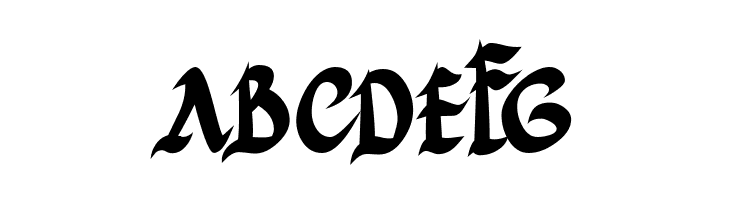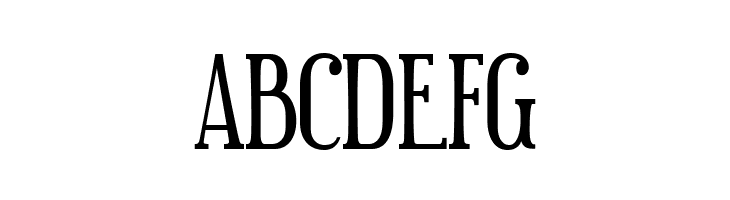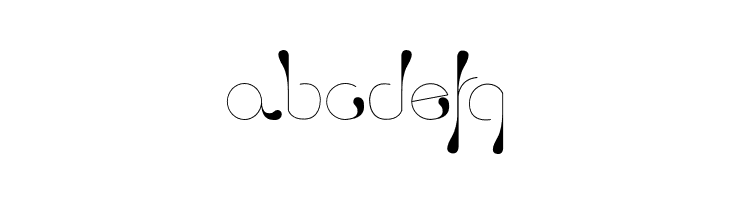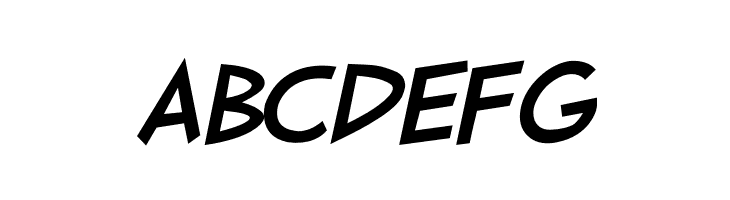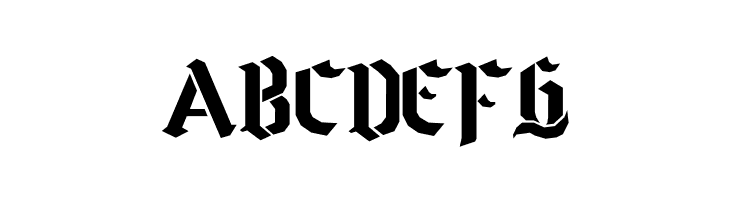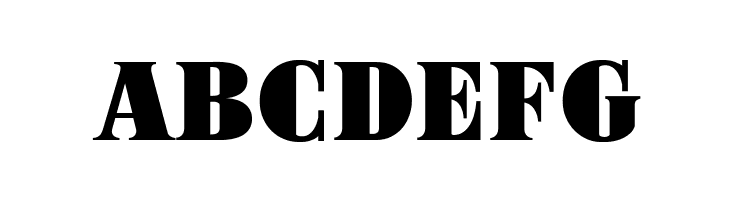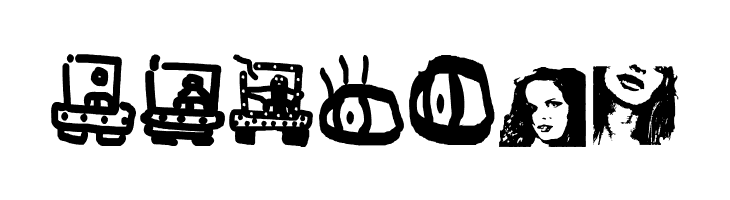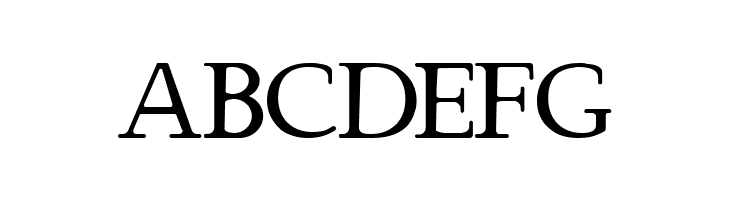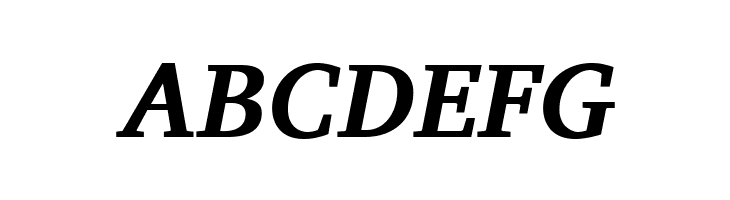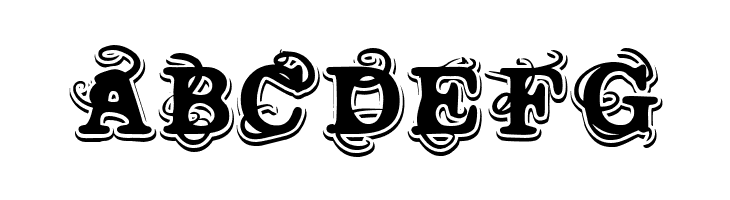
A bold, italic serif font with a dynamic and elegant style.
An elegant serif font with high contrast and sharp serifs, perfect for classic and refined designs.
A bold, high-contrast serif font with an expressive and modern style.
A bold, italic font with a dynamic and modern style.
A bold, gothic-inspired stencil font with sharp, angular lines and a medieval flair.
A bold, angular font with a futuristic and geometric style.
A bold, italic serif font with high contrast and elegant slanted characters.
A bold, italic, hand-drawn font with a playful and dynamic style.
An ornate, decorative font with intricate detailing and a vintage flair.
An ornate, vintage-style font with intricate flourishes and bold strokes.
A light, elegant serif font with classic curves and modern appeal.
A bold, playful font with a cartoon-like, hand-drawn style.
A bold, jagged font with a horror-themed, distressed appearance.
A playful, casual handwritten font with uneven strokes and a personal touch.